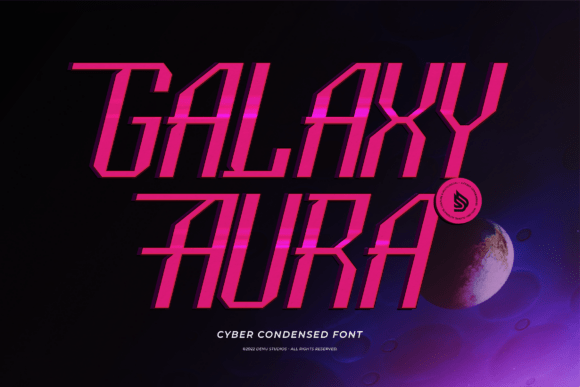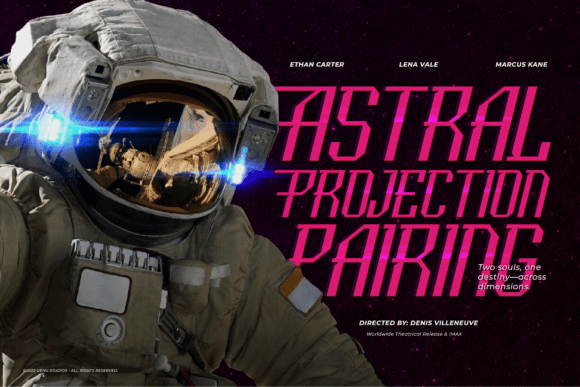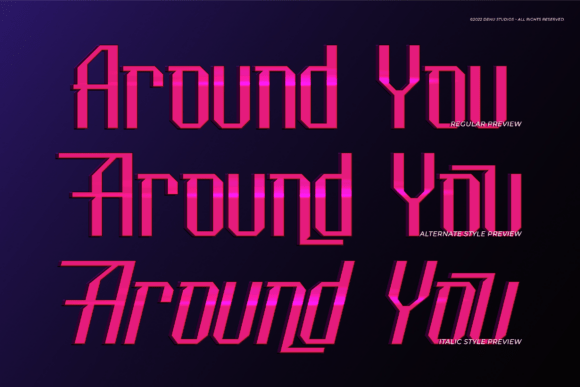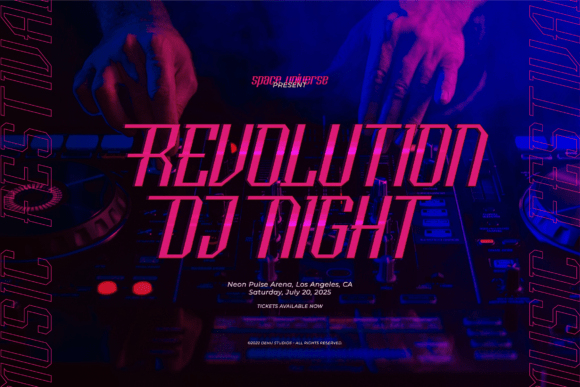
Galaxy Aura Font: A Modern Condensed Font for Cyberpunk Designs
About the Galaxy Aura Font
Welcome to the world of Galaxy Aura Font, a typeface that will inspire your next great project. Galaxy Aura is a cyber condensed font, suitable for any projects such as: logos, branding projects, homeware designs, product packaging, mugs, quotes, posters, shopping bags, t-shirts, book covers, name card, invitation cards, greeting cards, label, photography, watermark, special events, and all your other lovely projects that need a Cyber Condensed Font taste.
Galaxy Aura’s condensed, bold structure makes it ideal for headlines, short impactful statements, and logo design. It excels in branding for tech companies, streetwear labels, or projects needing a futuristic, edgy feel. Avoid using it for large blocks of body text or UI elements where readability is paramount; its condensed nature will hinder legibility.
Pairing Galaxy Aura effectively requires considering its strong personality. A clean sans-serif like Montserrat or Open Sans provides a modern counterpoint, enhancing readability when used alongside it in a design. For a more playful feel, a rounded geometric sans-serif like Futura would create a balanced contrast. In situations requiring a touch of elegance, a subtle serif like Garamond could be paired for contrast and sophistication.
Galaxy Aura projects a bold, modern, and slightly rebellious personality. It’s best suited for brands seeking a powerful and distinctive visual identity. Its assertive character makes it less suitable for projects that require a softer, more approachable tone.
Galaxy Aura Font Usage Examples
Galaxy Aura Font Example